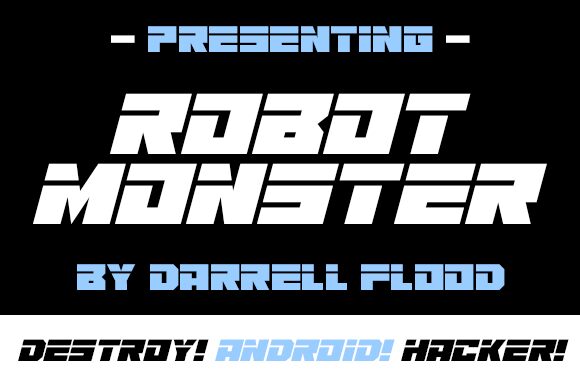
Robot Monster Italic
Looking for a font that screams futuristic? Look no further than Robot Monster Italic, the ultra-bold and wide display typeface from designer Darrell Flood. With its sleek lines and bold curves, this font is perfect for any project demanding an eye-catching, futuristic look. Whether you're designing a high-tech video game, creating a cutting-edge website or crafting sci-fi-themed marketing materials, Robot Monster Italic is the perfect choice. So why wait? Embrace the future today with the bold and stylish Robot Monster Italic!